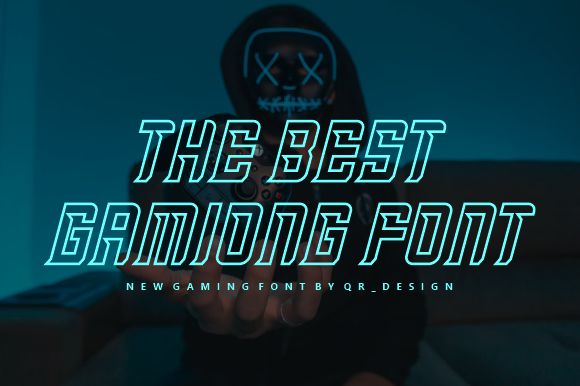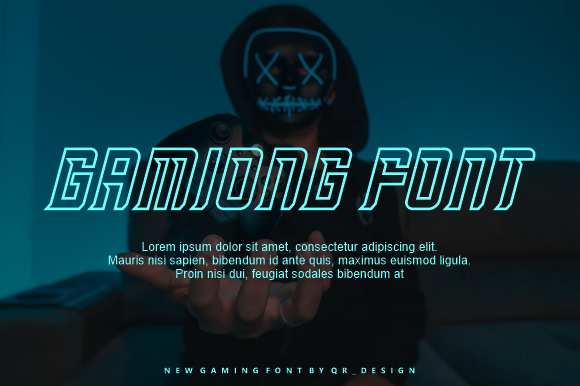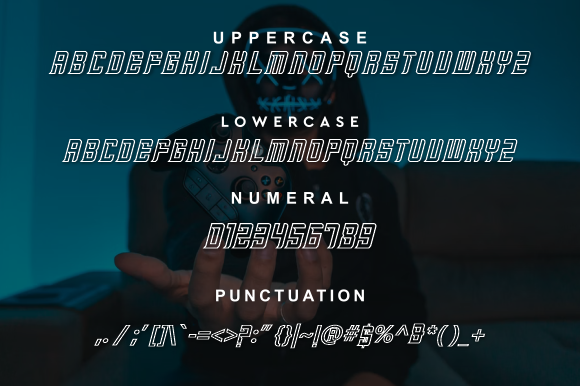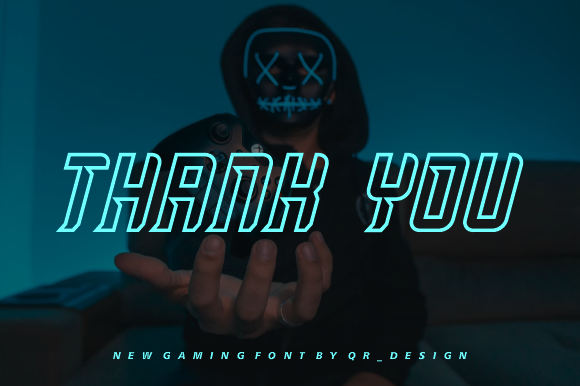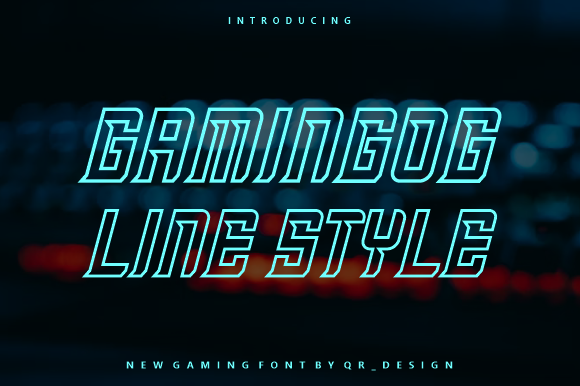
Gamingog Line Font: Elevate Your Game with a Bold and Authentic Display Font
In the world of game branding and creative projects, a font can make all the difference. It can convey the tone, personality, and style of your game or project, setting it apart from the rest. That’s where Gamingog Line Font comes in – a bold and authentic display font designed to charm and captivate your audience. In this article, we’ll dive into the features and benefits of Gamingog Line Font, and explore how it can elevate your game or creative project.
What is Gamingog Line Font?
Gamingog Line Font is a carefully crafted display font, specifically designed for game branding and a wide range of creative projects. Its bold and authentic style makes it perfect for headlines, titles, and any other text that needs to make a statement. With its unique charm and effectiveness, Gamingog Line Font is sure to grab attention and leave a lasting impression.
Key Features of Gamingog Line Font
- Bold and Authentic Style: Gamingog Line Font boasts a bold and authentic style that’s perfect for making a statement.
- Versatility: This font is suitable for a wide range of game branding and creative projects, from logos and titles to posters and advertisements.
- Easy to Read: Despite its bold style, Gamingog Line Font is easy to read, even at smaller sizes.
- Unique Charm: The font’s unique charm and character make it stand out from more generic fonts.
Benefits of Using Gamingog Line Font
So, why choose Gamingog Line Font for your game or creative project? Here are just a few benefits:
- Instant Recognition: With its bold and authentic style, Gamingog Line Font can help your game or project stand out and gain instant recognition.
- Professional Look and Feel: The font’s high-quality design and unique charm give your game or project a professional look and feel.
- Flexibility: Gamingog Line Font can be used for a wide range of applications, from digital to print.
- Time-Saving: With Gamingog Line Font, you can save time and effort in designing your game or project’s branding, as the font is ready to use and easily customizable.
Who Can Benefit from Gamingog Line Font?
Gamingog Line Font is perfect for:
- Game Developers: Create a bold and authentic brand identity for your game with Gamingog Line Font.
- Graphic Designers: Add a unique touch to your designs with this versatile and effective font.
- Marketers: Use Gamingog Line Font to create eye-catching advertisements and promotional materials.
- Crafters and Makers: Add a professional touch to your craft or product labels with Gamingog Line Font.
Tips for Using Gamingog Line Font
Here are a few tips for getting the most out of Gamingog Line Font:
- Use it Boldly: Gamingog Line Font is designed to make a statement, so don’t be afraid to use it boldly and prominently.
- Experiment with Colors: Try pairing Gamingog Line Font with different colors to create a unique and eye-catching effect.
- Mix and Match: Combine Gamingog Line Font with other fonts to create a unique and interesting contrast.
In conclusion, Gamingog Line Font is a bold and authentic display font that’s perfect for game branding and a wide range of creative projects. With its unique charm, versatility, and ease of use, it’s an excellent choice for designers, crafters, and marketers looking to make a statement. Whether you’re creating a game, designing a logo, or crafting a promotional material, Gamingog Line Font is sure to elevate your project and leave a lasting impression.